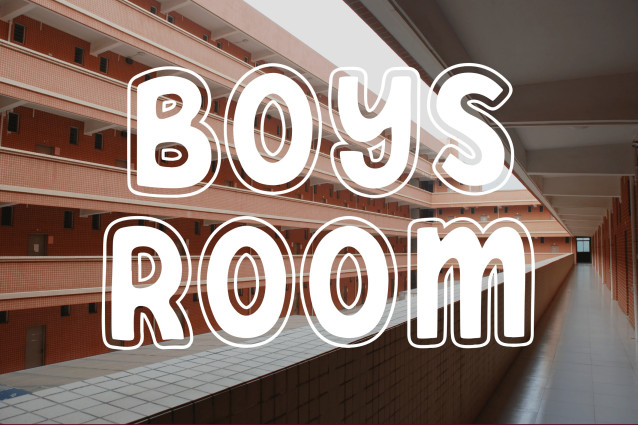
Quirky Varsity Font
Quirky Varsity Font is a fun, retro-styled stacked font that blends varsity aesthetics with a whimsical twist. With its bold, slightly irregular strokes and hand-drawn charm, this font is perfect for school-themed projects, class merchandise, creative branding, playful posters, and standout titles. It captures the spirit of youthful energy with a nostalgic, quirky flair.